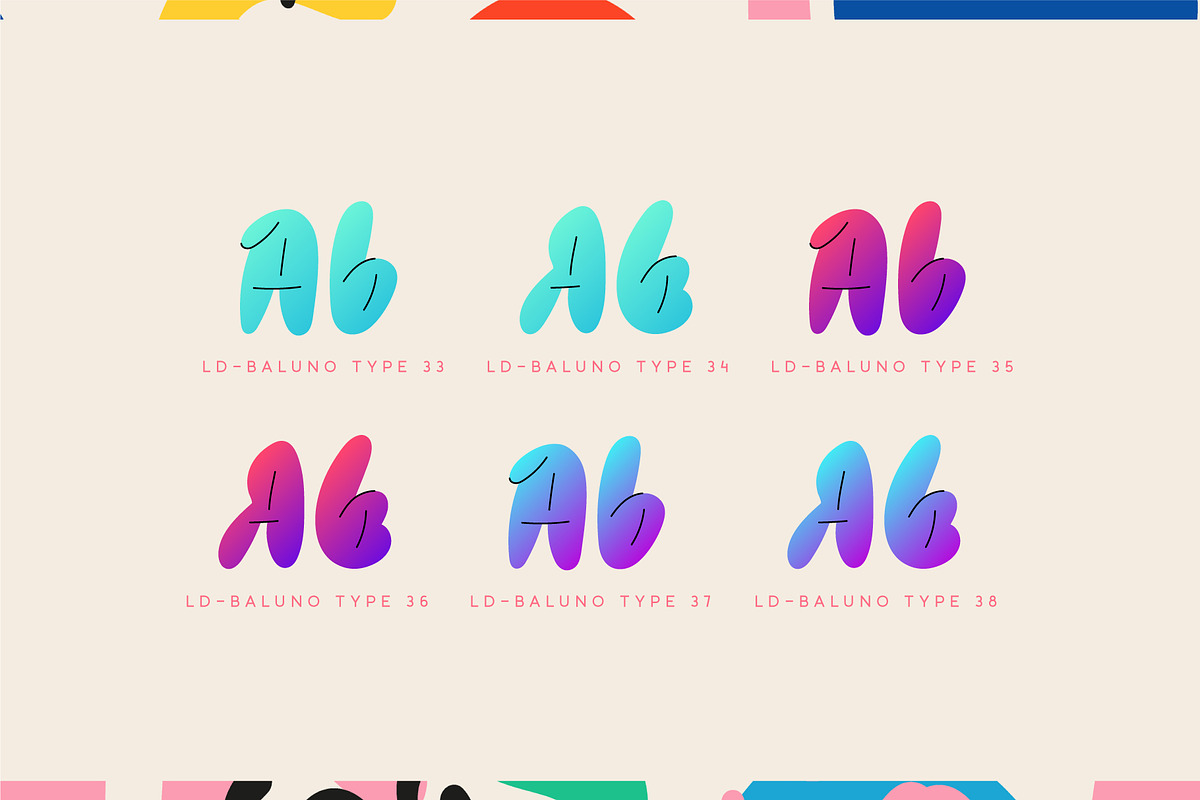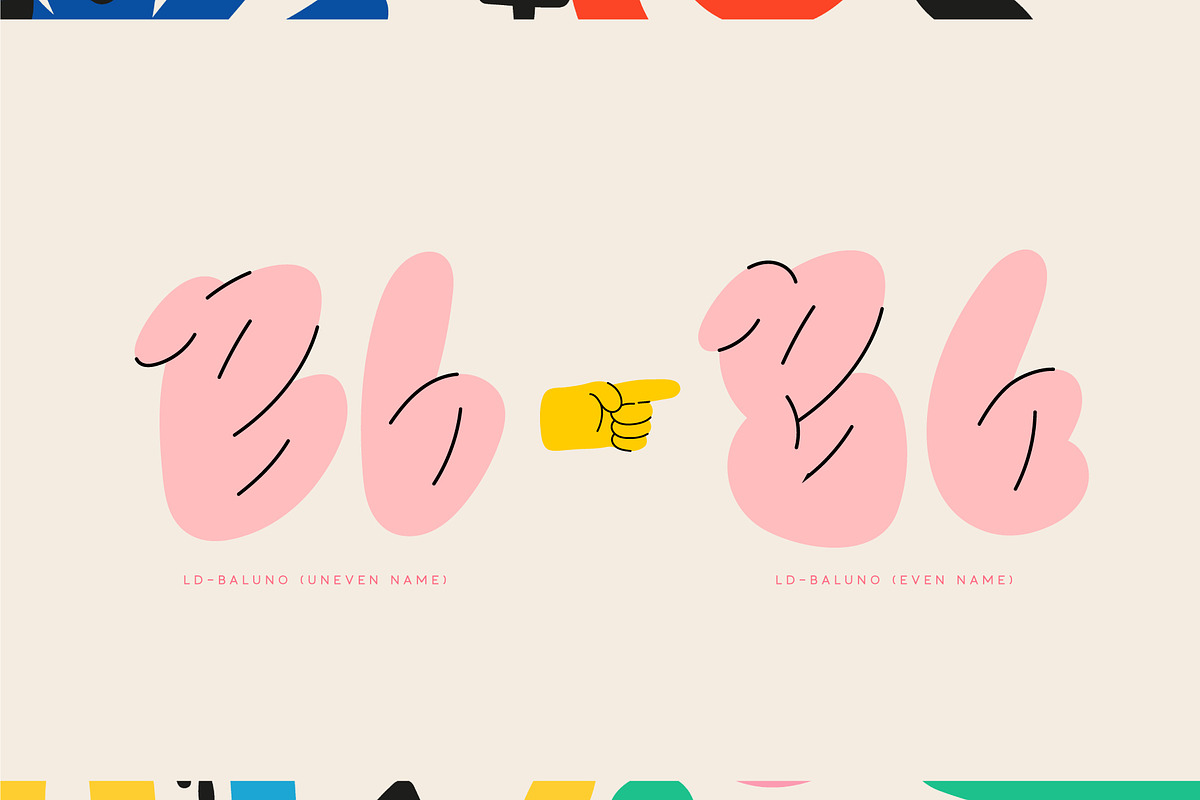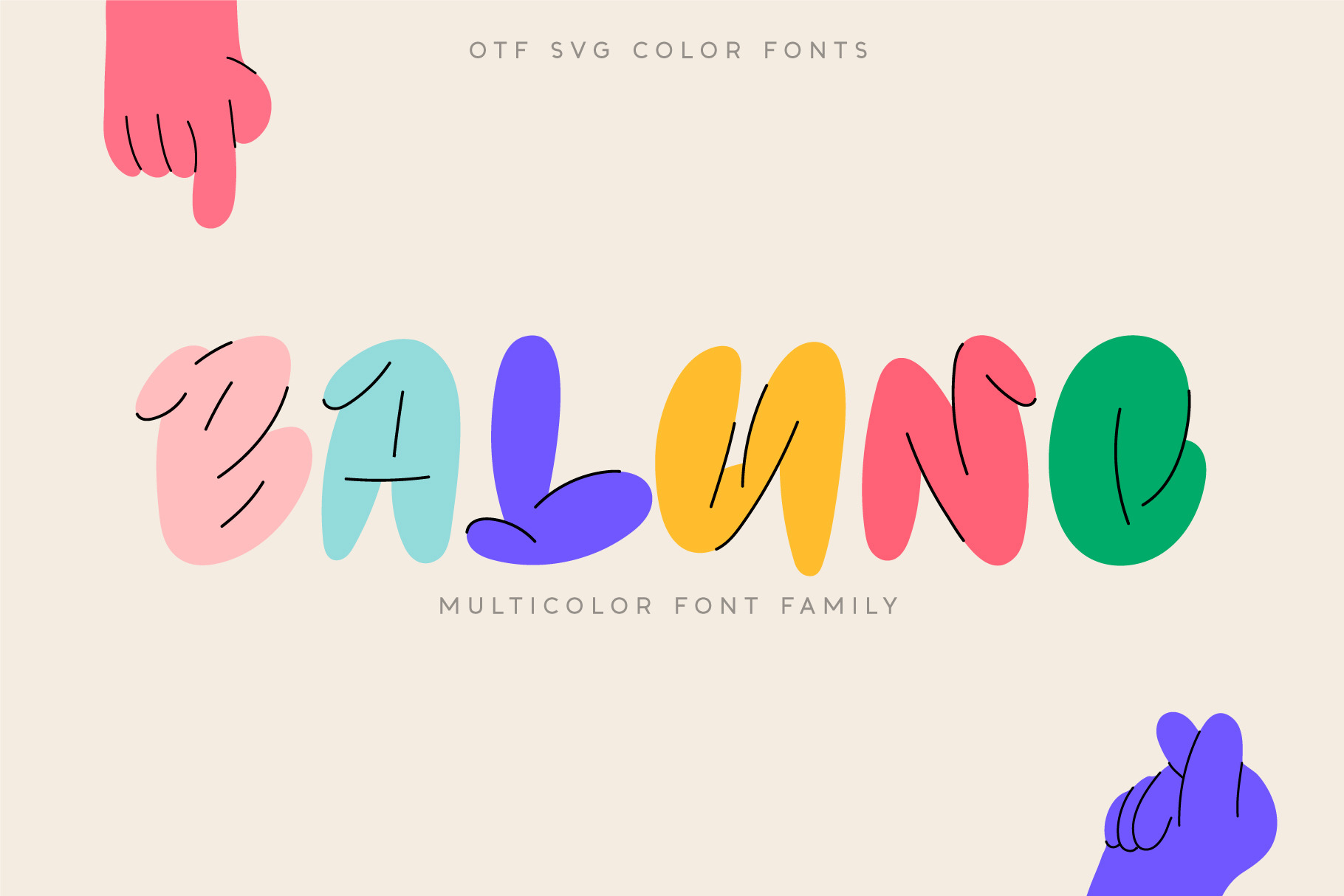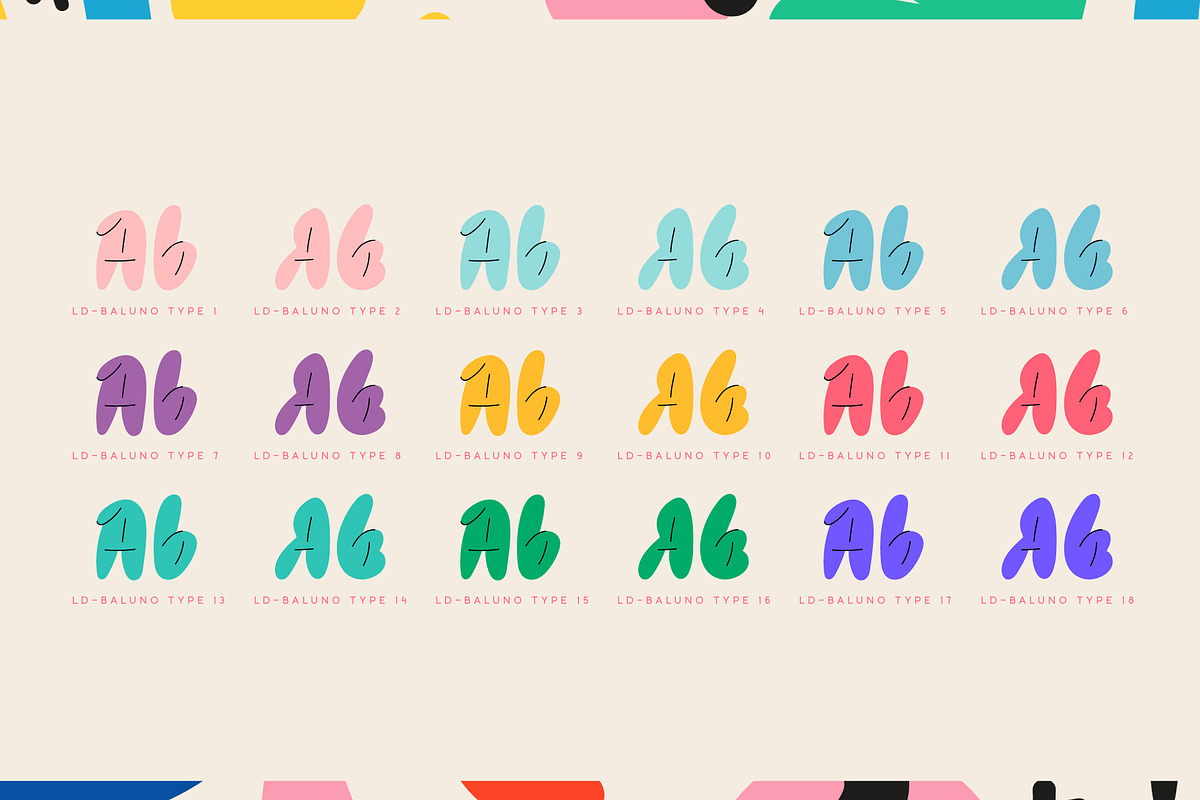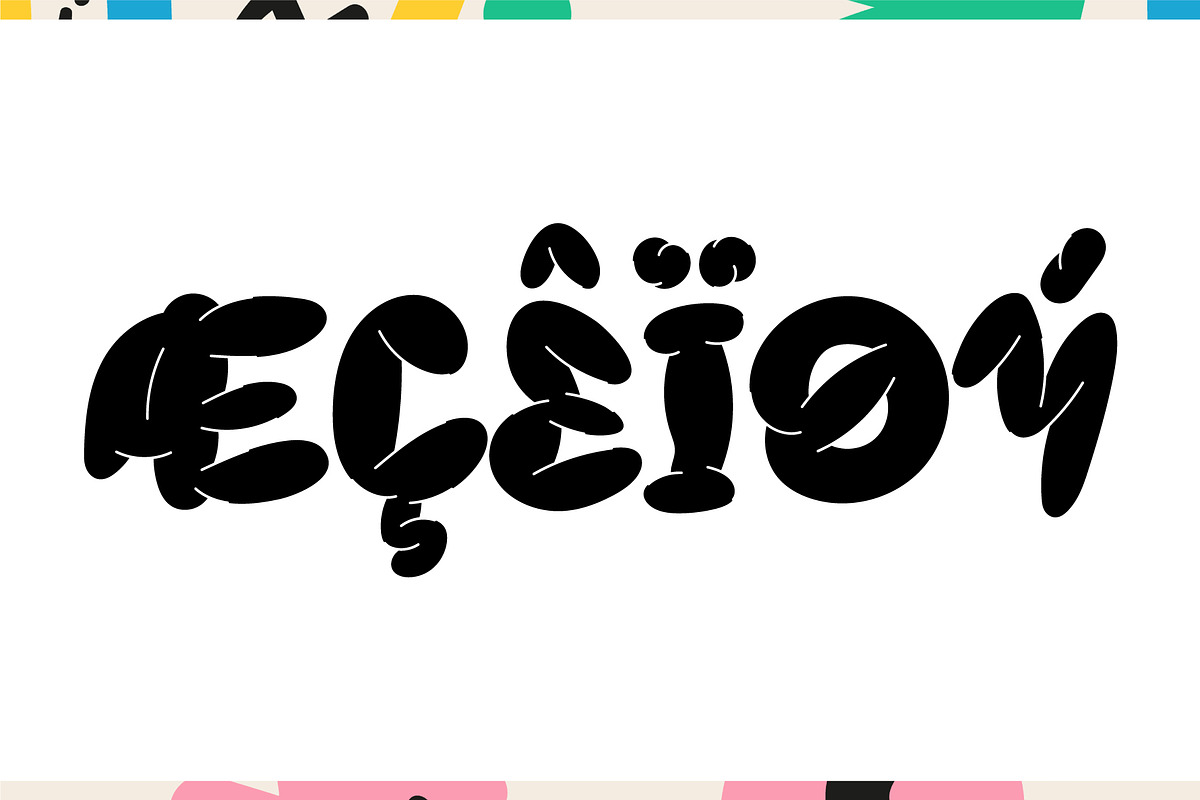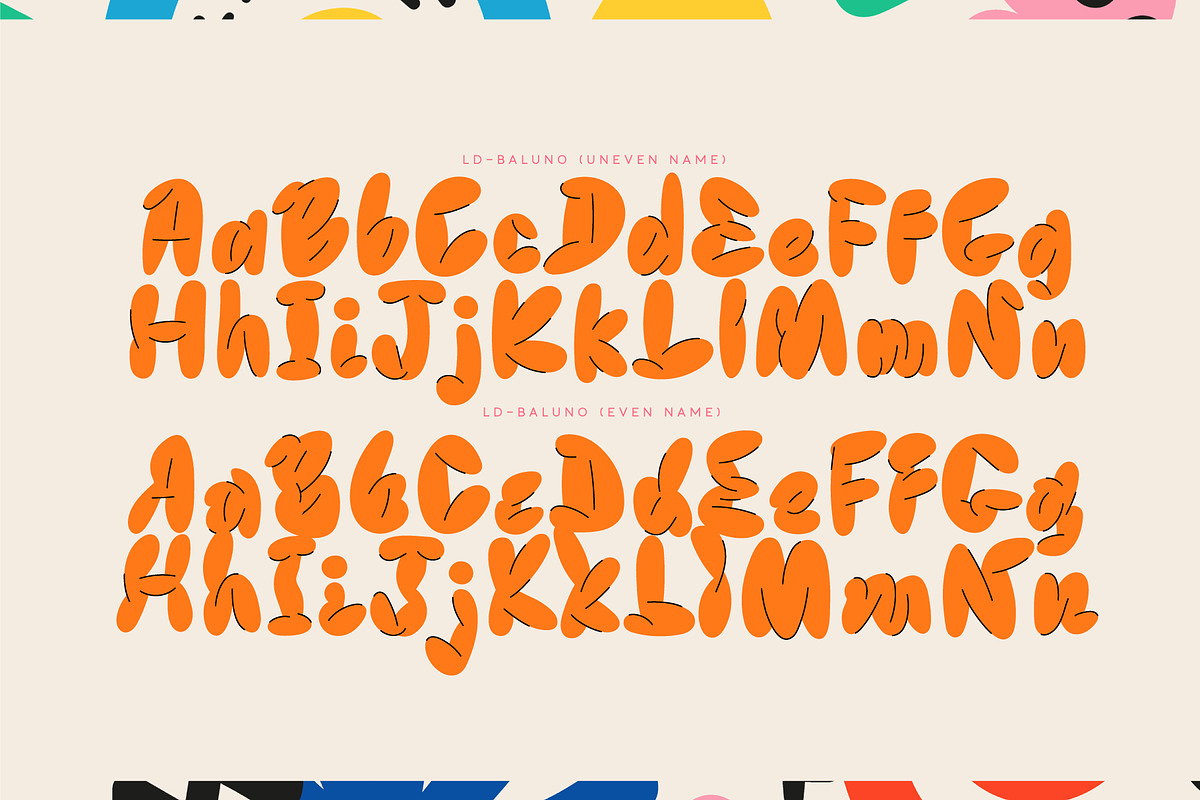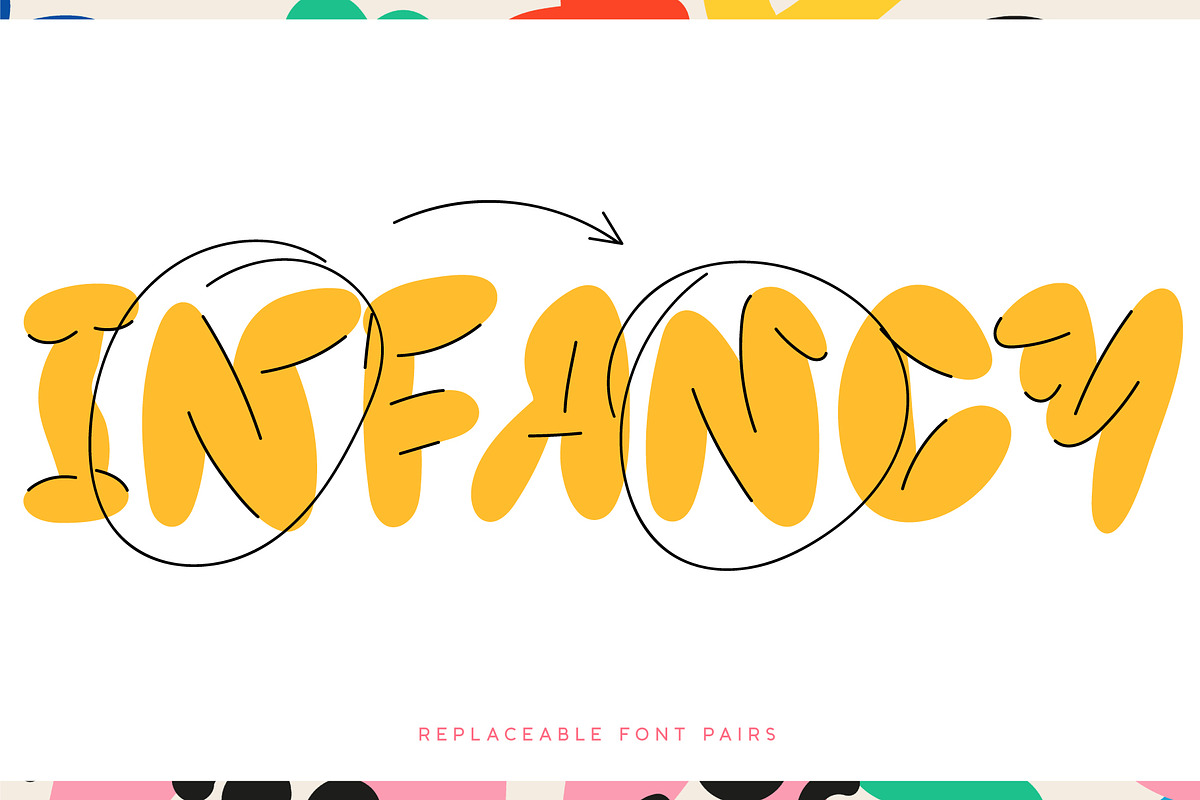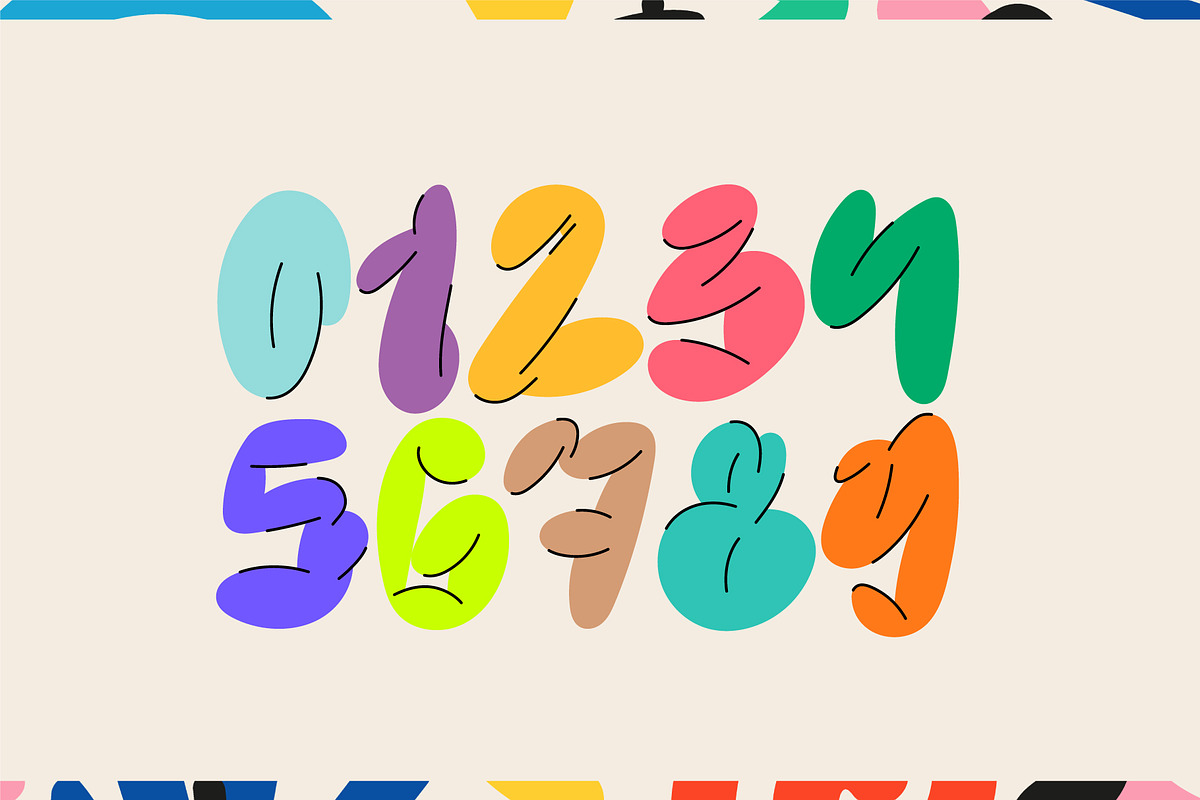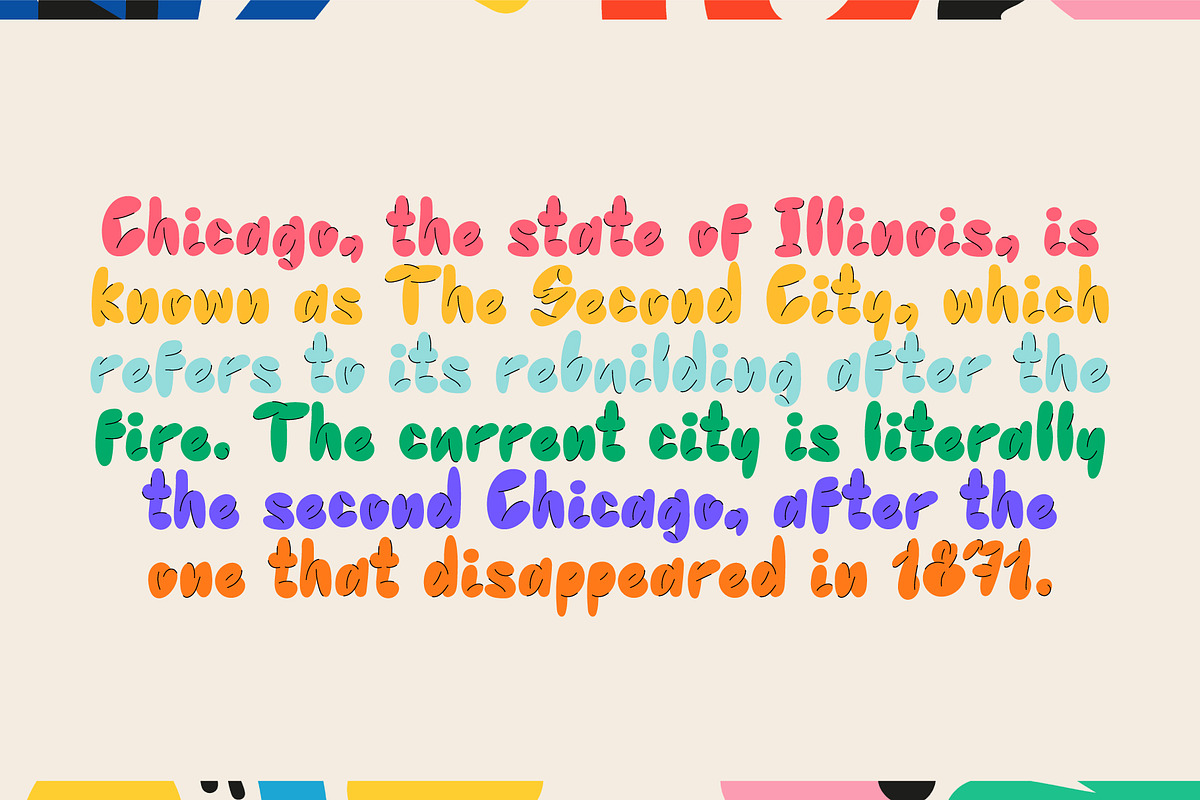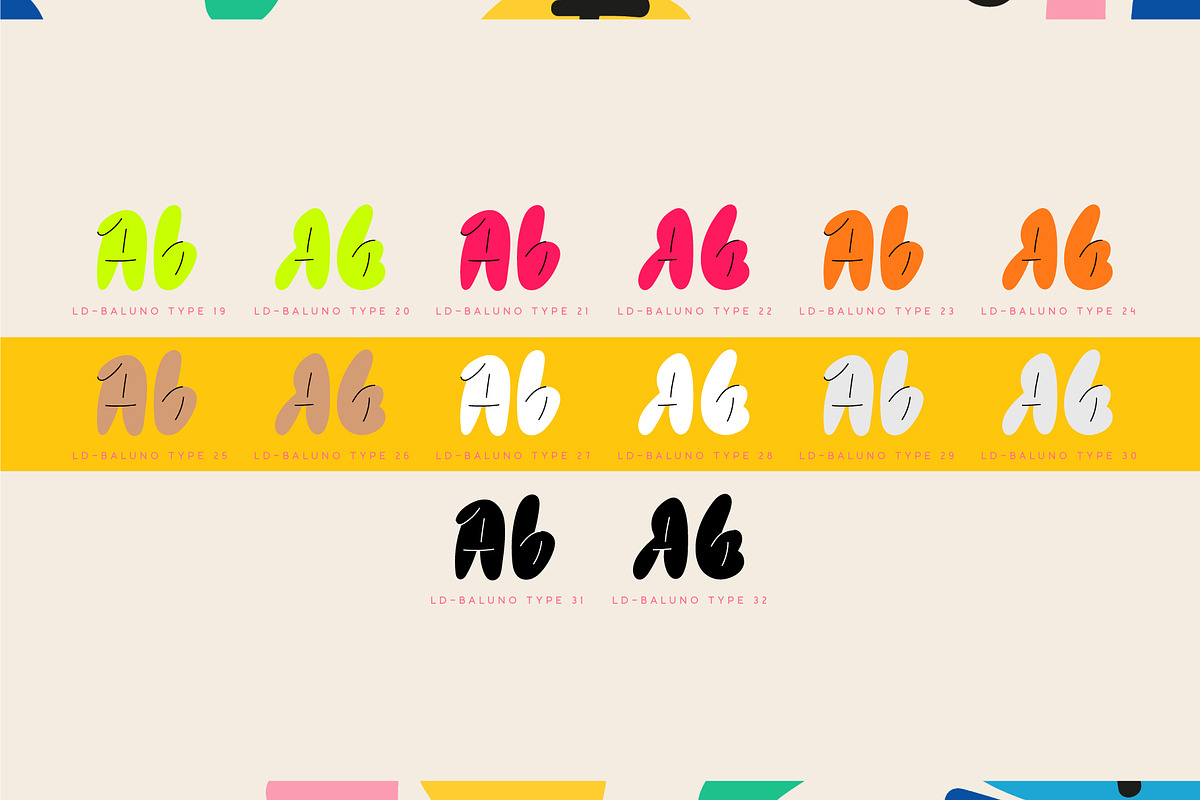
Baluno. OTF-SVG Color font family.
Introducing is a fun and playful pouty Baluno font. MULTICOLOR font has embodied the graphic trend of cartoon flat illustrations and will successfully complement modern designs. Font has 2 types of faces, which can be used both independently and together by alternating letters in one word to avoid repeating letters, creating a unique heading. Family is ideal for children's themes, because the font resembles inflated balloons. Creates a relaxed mood and has fun. Set comes in many different carefully selected colors and gradient color options.
- 2 types of faces.
- Lots of ready-made matched colors.
- Gradient color variants.
- Kerning.